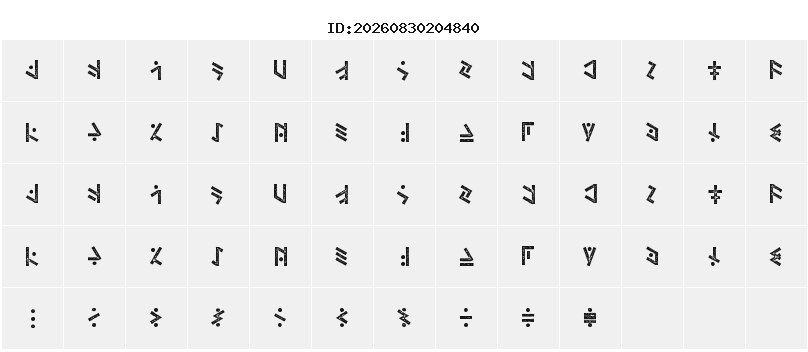
Temphis Dirty Preview
• Font Name: Temphis Dirty
• Full Font Name: Temphis Dirty
• Designer: S. John Ross
• Description: Yet another groovy Temphis Runes font. This font is freeware for personal, non-commercial use only.
About Temphis Dirty.ttf